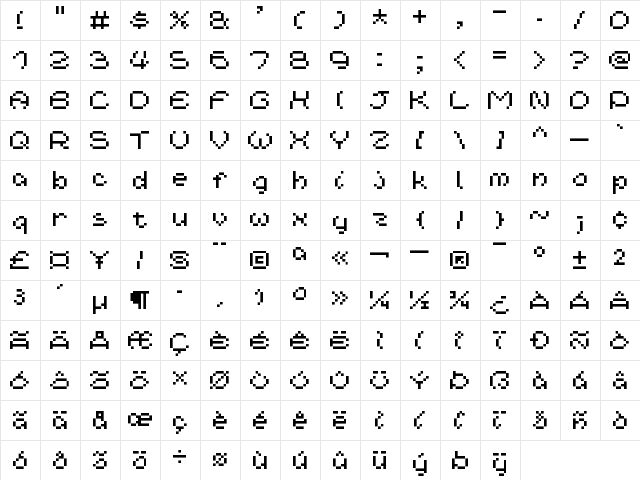
Nineteen Ninety Six Regular
| Designer | GameDevDan |
Design Context for Nineteen Ninety Six Typeface
Nineteen Ninety Six is a composed and adaptable typeface that performs quietly and consistently across a wide range of design contexts.